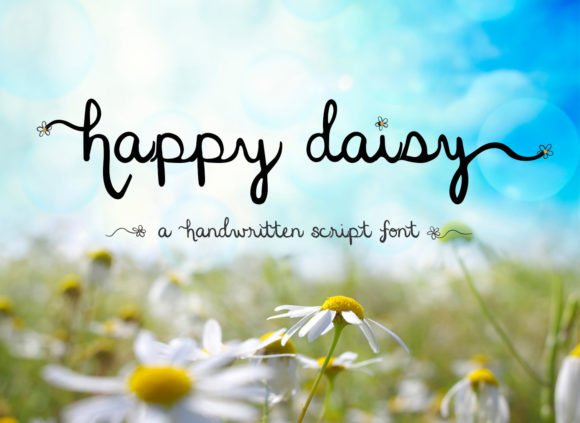
Discover the Delight of Happy Daisy Font
Have you ever felt like your design is missing that special something – a touch of elegance, a dash of whimsy? It’s a feeling we’ve all experienced at some point in our creative journeys. As designers, we’re constantly searching for the perfect font to bring our visions to life. And that’s where the Happy Daisy Font comes in – a delicate, elegant, and flowing handwritten font that’s sure to captivate your audience.
This beautiful font is more than just a pretty face; it’s a valuable tool for designers looking to add a touch of sophistication to their projects. With its well-balanced characters and PUA encoding, accessing all of the glyphs and swashes is a breeze. Whether you’re working on a wedding invitation, a children’s book, or a branding campaign, the Happy Daisy Font is sure to be a game-changer.
Happy Daisy Font Key Features
- Unique Characteristics: Hand-drawn design with a playful, whimsical feel and subtle texture, perfect for creating a cheerful atmosphere in branding, advertising, and digital products
- Font Style: Casual, friendly, and approachable, ideal for use in headings, titles, and short paragraphs
- Font Weight: Available in 6 weights, from Light to Bold, allowing for versatility in design and typography
Happy Daisy Font Review
I recently had the chance to work with the Happy Daisy Font, and I must say, it’s a delightful addition to any design project. ✨ One of the things I love about this font is its playful and cheerful vibe, perfect for projects that need a touch of whimsy. It’s great for creating engaging headlines, social media graphics, or even children’s book illustrations.
The font also features a clean and modern design, making it suitable for a wide range of applications. The characters are well-designed, with clear and legible lines that ensure readability even at smaller font sizes.
While Happy Daisy Font is a great choice for many projects, there are some limitations to consider. ⚠️ For one, the font might not be suitable for projects that require a more formal or serious tone. Additionally, the font’s design can be quite bold, so it may not be the best choice for projects that require subtle or understated typography.
Based on my experience, here are some requirements to consider when working with Happy Daisy Font:
- Best used for playful, whimsical, or children’s projects.
- Not recommended for formal or serious projects.
- Can be quite bold, so use with caution in projects requiring subtle typography.
Overall, I think Happy Daisy Font is a great addition to any designer’s toolkit. It’s a fun and versatile font that’s sure to bring a smile to your face and delight your audience.
The Happy Daisy Font is ideal for use in:
– Children’s book illustrations
– Branding and logo design
– Any design that requires a playful and whimsical touch.
Getting the Most Out of the Happy Daisy Font
To get the most out of the Happy Daisy Font, experiment with different font sizes, colors, and styles to create a unique and eye-catching design. Combine it with other playful fonts or graphics to add visual interest and depth to your design.
Alternatives to Happy Daisy Font
Lobster Font is a playful, cursive script font ideal for titles and headings in creative projects. It’s perfect for adding a touch of elegance and sophistication to your designs. In comparison to Happy Daisy Font, Lobster Font is more formal and has a more refined feel.
Great Vibes Font is a beautiful, handwritten script font that’s perfect for creating a relaxed and casual atmosphere in your designs. It’s ideal for use in posters, invitations, and other creative projects where a personal touch is needed. Unlike Happy Daisy Font, Great Vibes Font has a more laid-back feel and is better suited for casual designs.